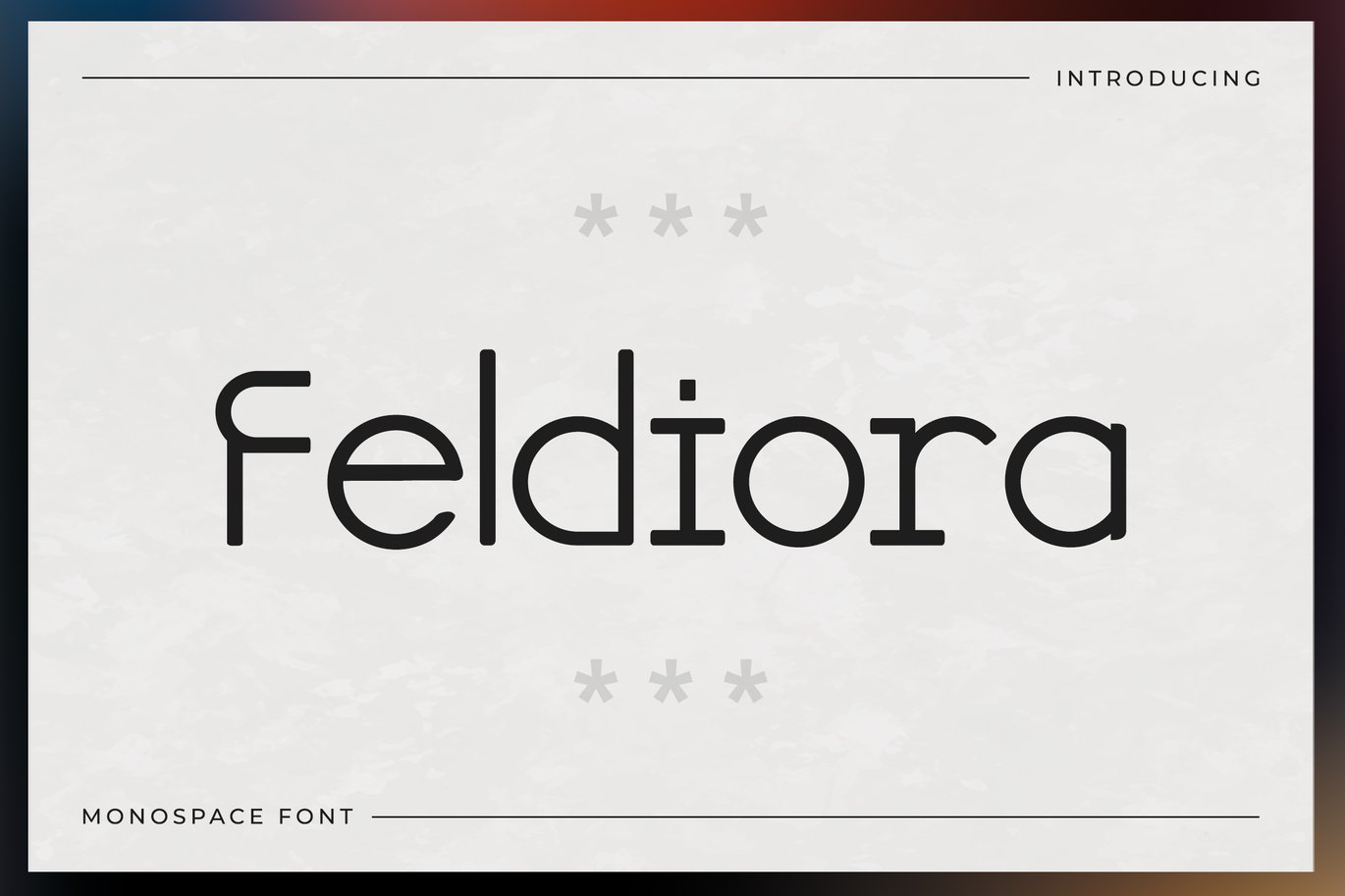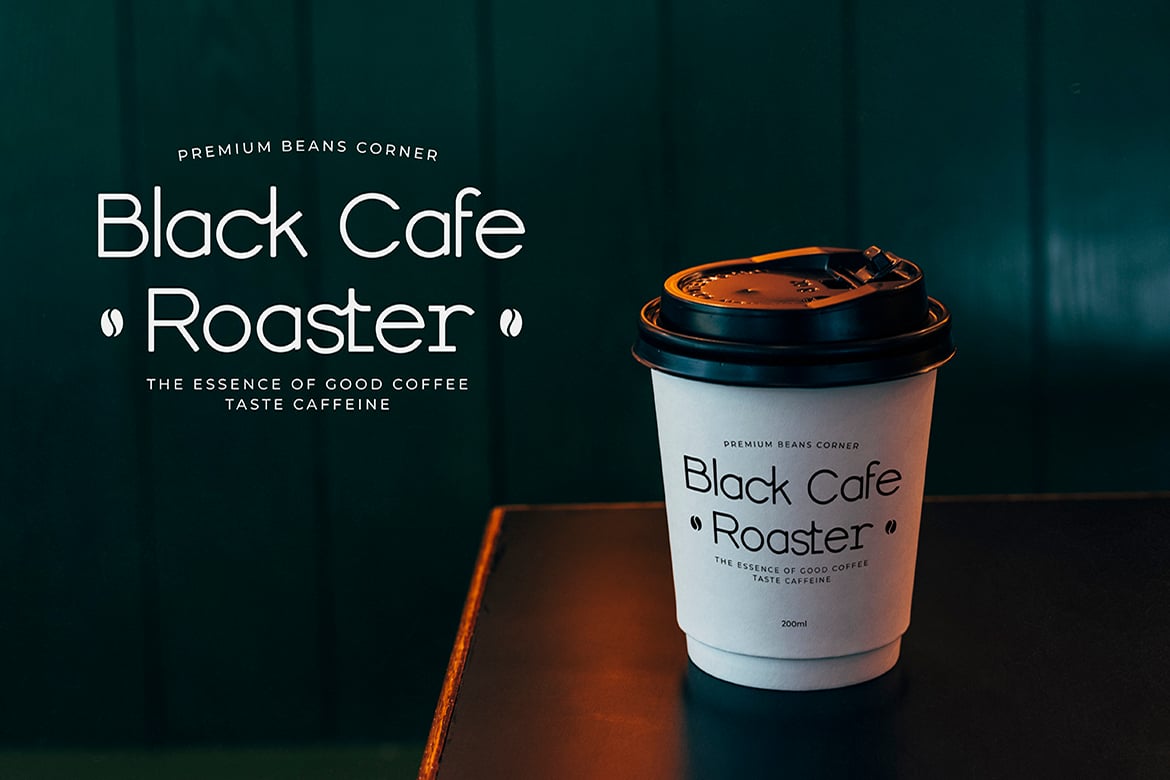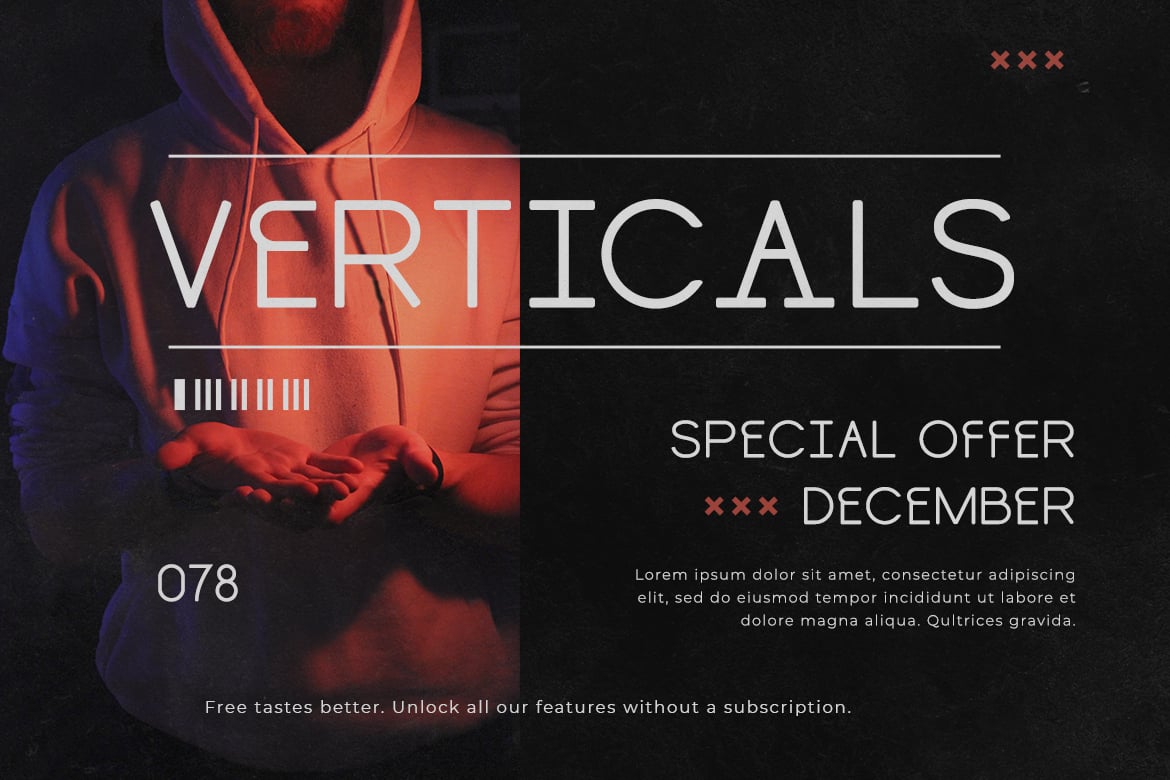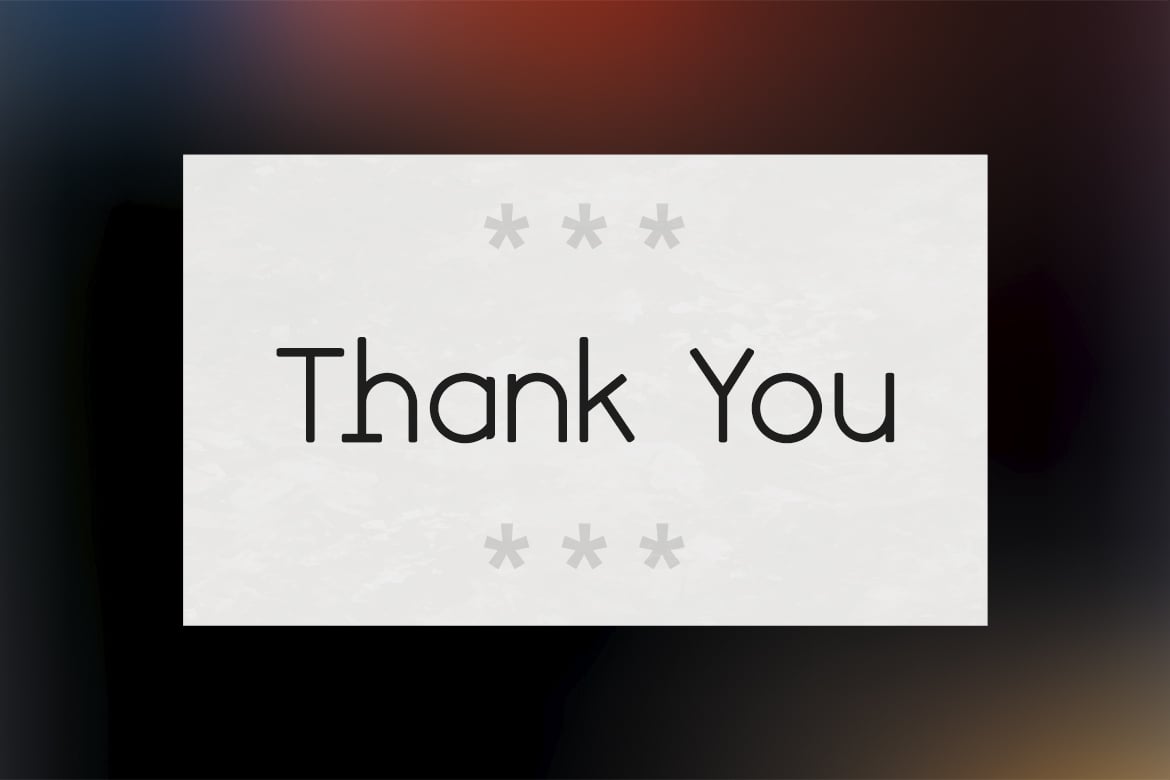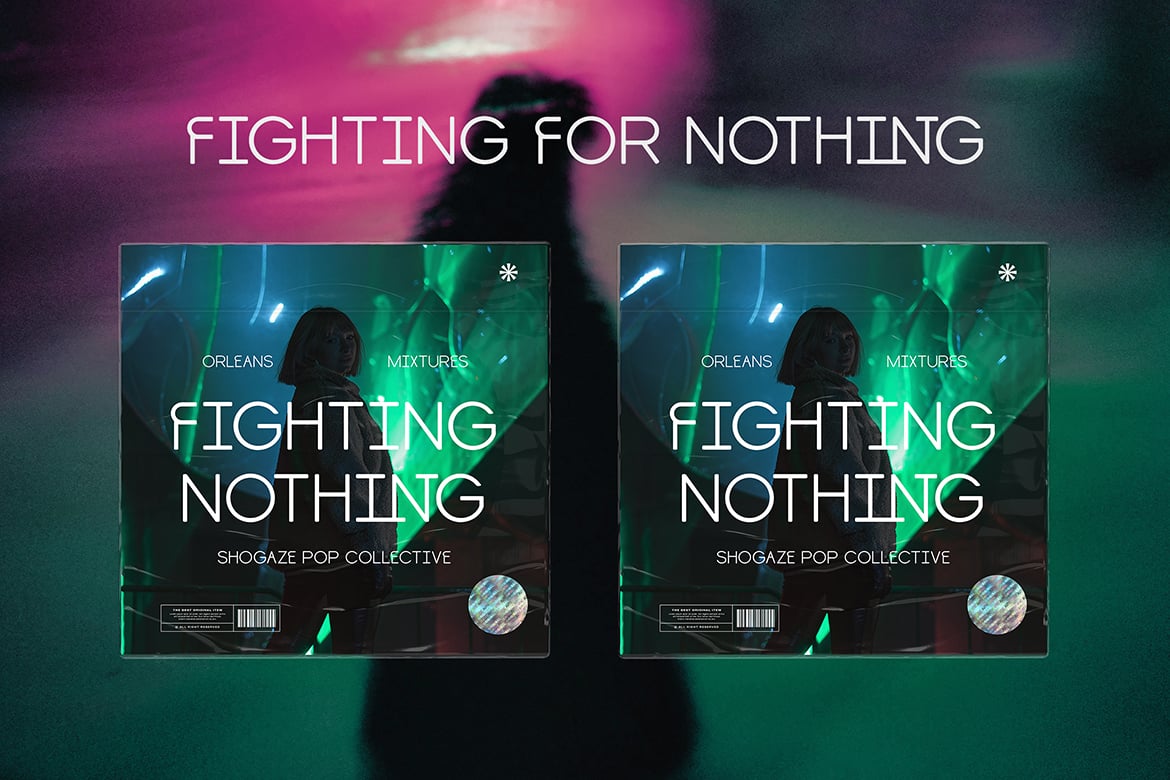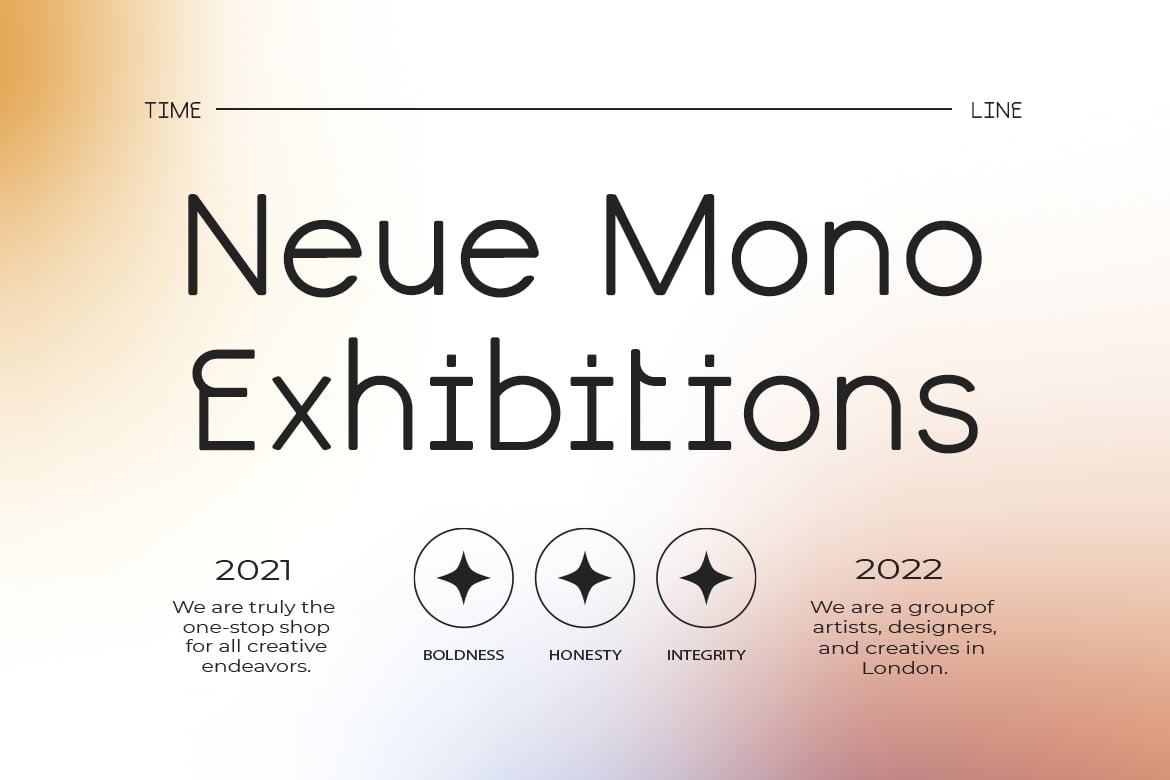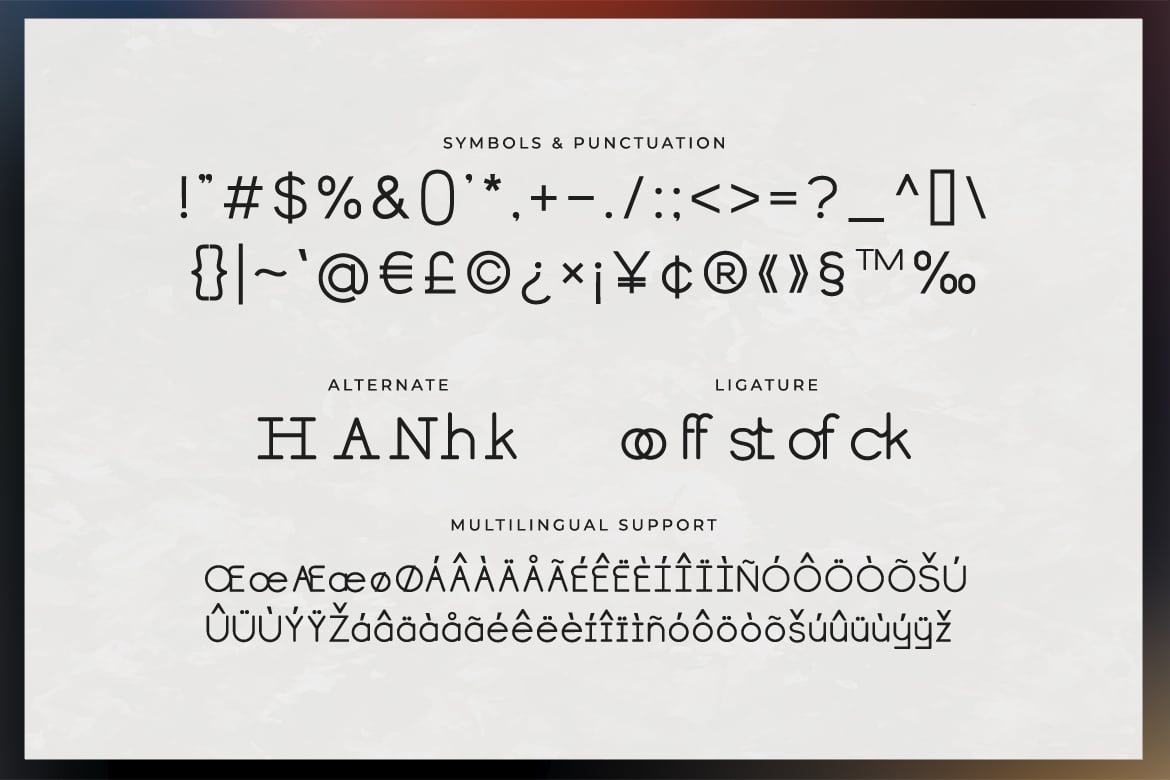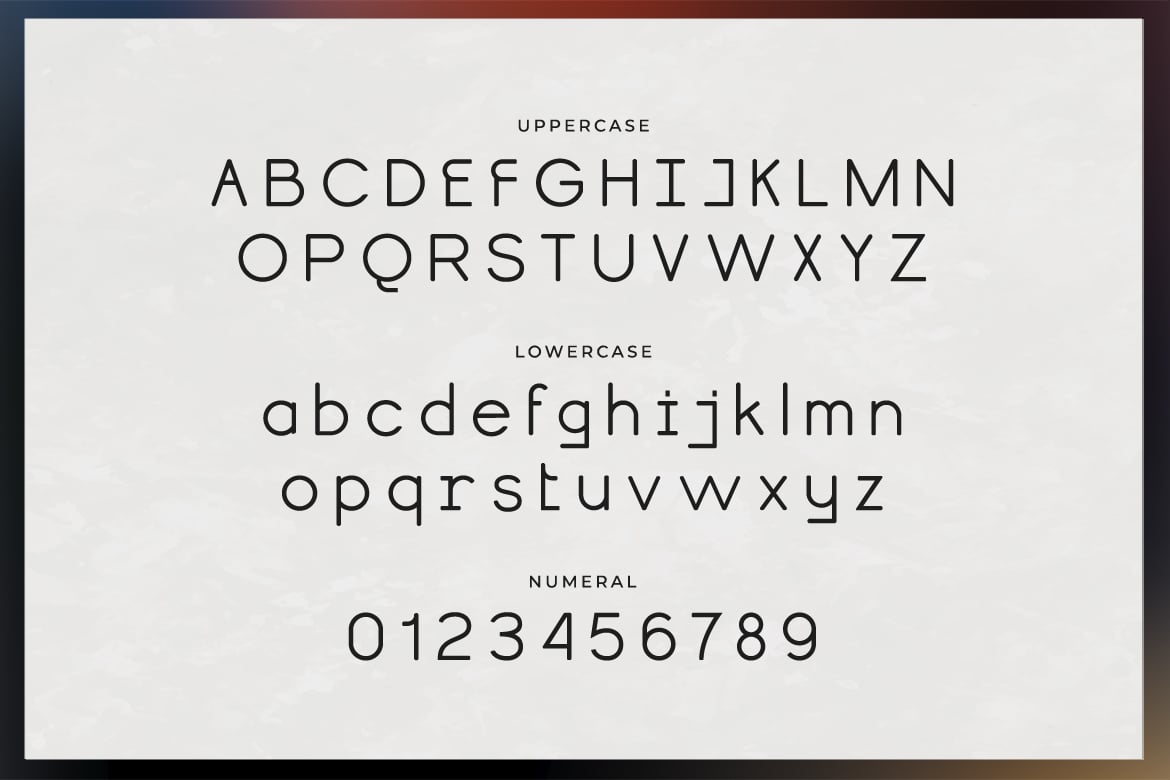
Feldiora – Monospace Font
Feldiora is a unique and breathtaking monospace display font perfect for a wide variety of designs.
Add this beautiful display font to each of your creative ideas, and notice how it makes them stand out!